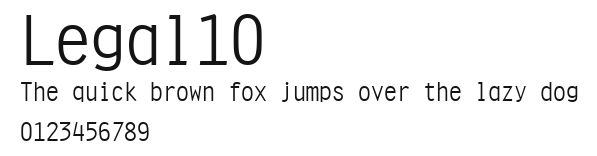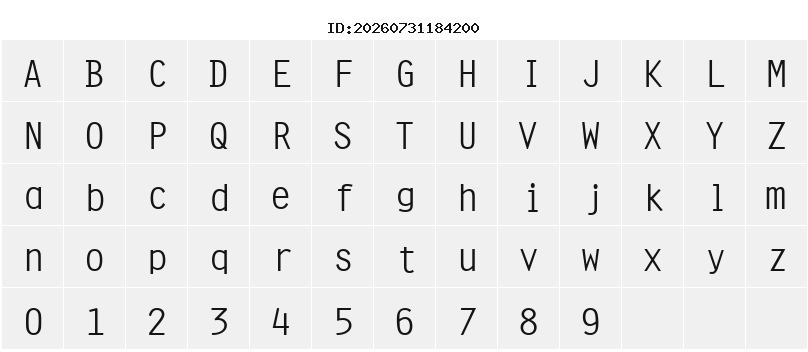
• Font Name: Legal10
• Full Font Name: Legal 10 Pitch
About Legal10 .ttf
Legal10 .ttf is a modern, elegant sans-serif font designed for ultimate readability and visual harmony. Perfect for branding, headlines, web design, and print materials.